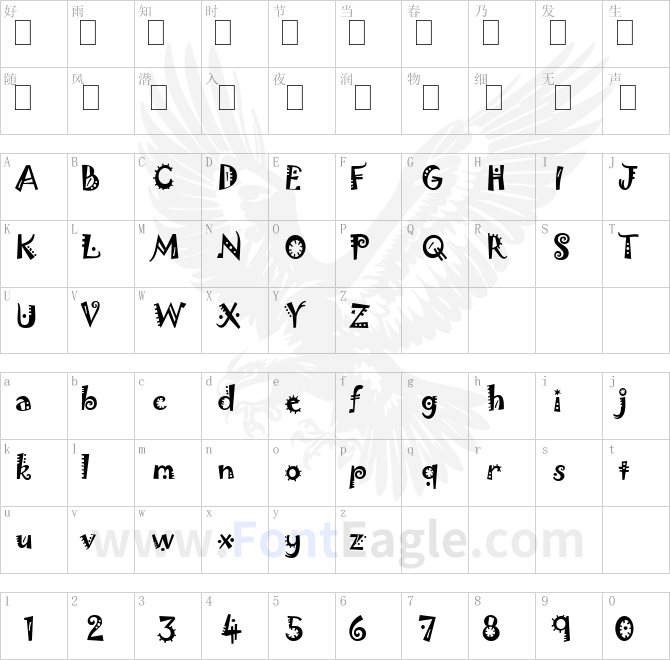
- Font name:Jokerman LET
Jokerman-LET-Plain-1 is a great font, widely used in graphic design, single-page menu design, poster design and other fields, and is deeply loved by designers.Jokerman-LET-Plain-1 download.